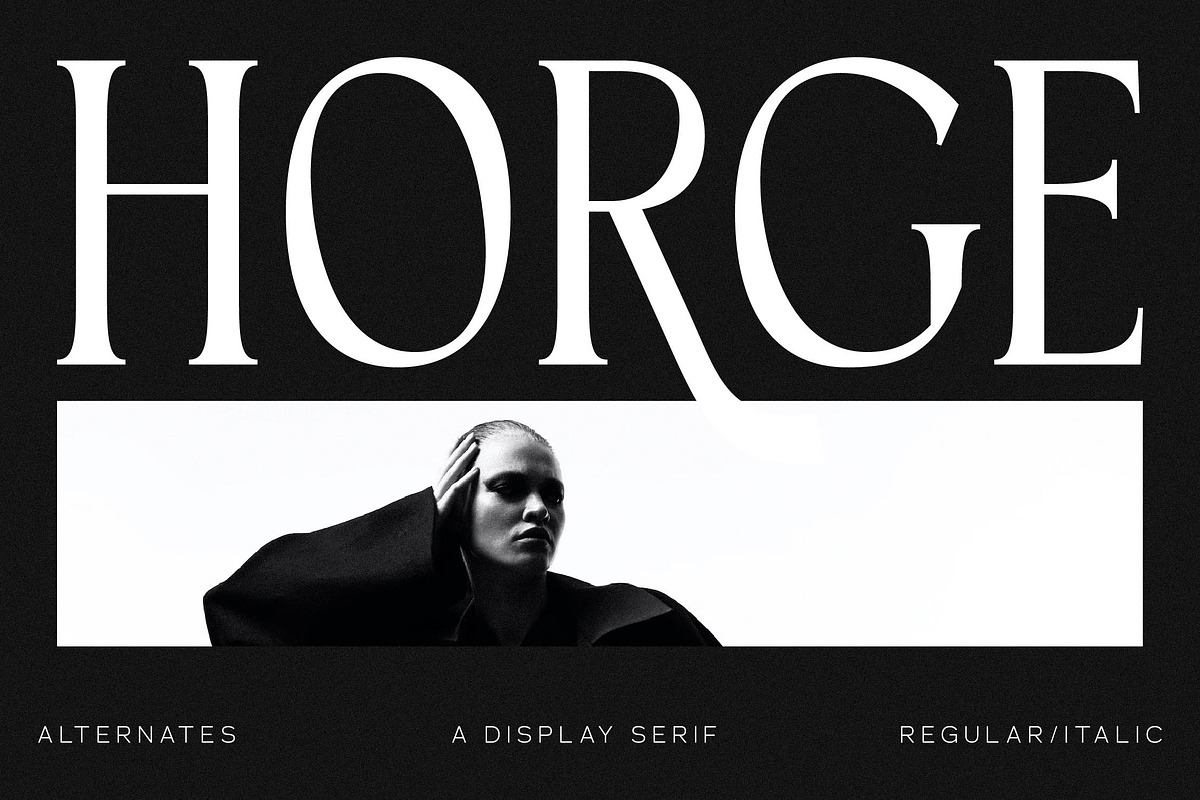
Horge A Display Serif Font Free Download is a bold and elegant typeface designed to make a strong impression. With its distinctive serifs, geometric shapes, and modern proportions, this font is perfect for use in high-impact projects such as logos, headlines, editorial design, and branding.
Horge A combines the classic sophistication of a serif with a contemporary twist, making it versatile for both traditional and modern design aesthetics. Whether you're working on a luxury brand, a fashion campaign, or a creative magazine layout, this font will bring a refined and polished touch to your work.
The font includes uppercase and lowercase letters, numerals, punctuation, and multilingual support, offering flexibility for a wide range of design needs. It works well in both print and digital formats.